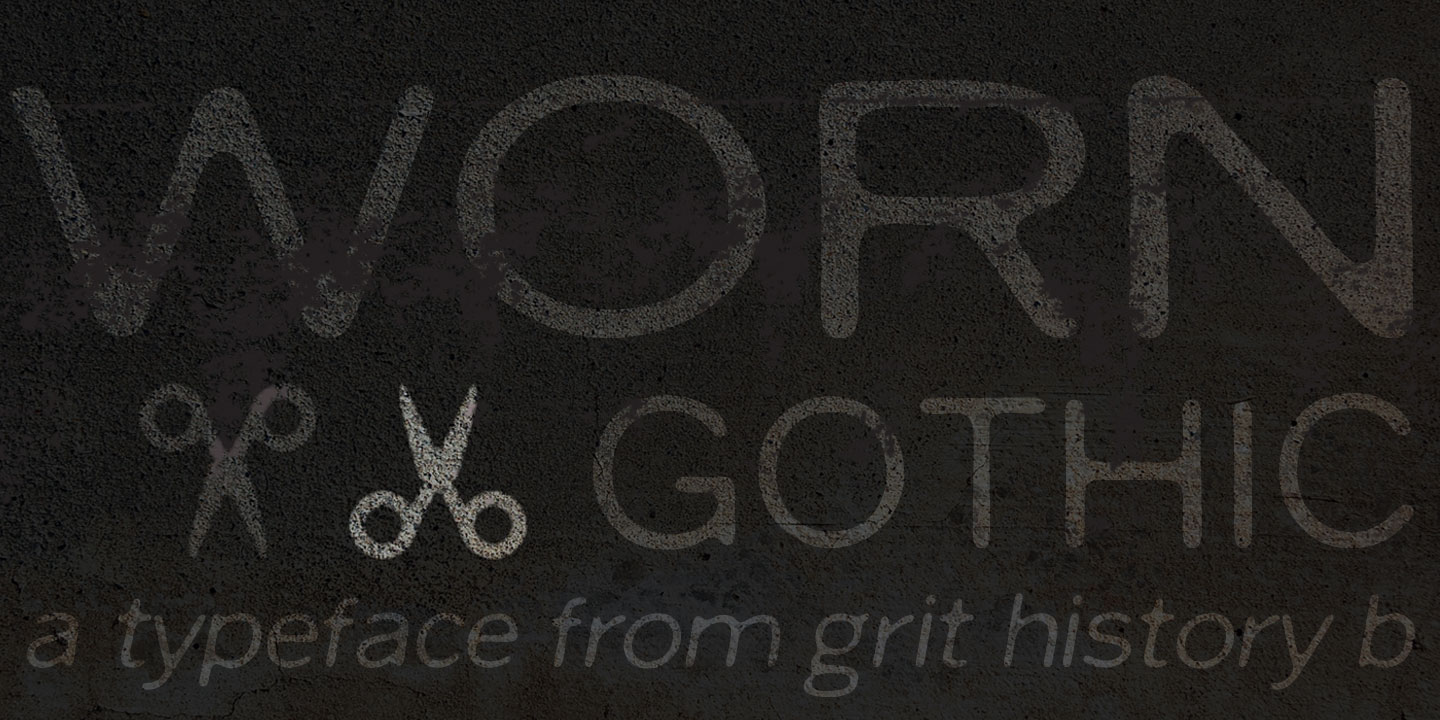
Worn Gothic Font is perfect for vintage horror movie posters, distressed clothing brand logos, weathered architectural signage, aged manuscript reproductions, grunge music album covers, antique shop branding, historical restoration projects, and atmospheric haunted attraction promotions. This haunting typeface excels in vintage applications, distressed design projects, and any creative work requiring weathered authenticity that captures the essence of gothic decay and timeworn character through atmospheric visual aging.
What makes Worn Gothic Font exciting is its remarkable ability to embody the haunting beauty of time-weathered gothic architecture through authentically distressed letterforms that carry the weight of centuries and the mystery of forgotten ages. The font features dramatically aged characters with gothic decay and weathered proportions that evoke feelings of historical depth and atmospheric mystery, making it ideal for brands seeking to establish connections with vintage enthusiasts and communicate through authentically aged visual language. Its weathered presence ensures immediate recognition of gothic authenticity and timeworn sophistication.
Worn Gothic Font family includes multiple weights and styles: Regular, Bold, Light, Medium, Italic variations, and distressed alternates with weathered embellishments and gothic decorative elements. Each family member maintains the distinctive aged character while offering comprehensive design options for vintage campaigns, from atmospherically weathered text to commanding gothic headlines that establish historical authority and vintage credibility through authentically distressed typography.
Whether you're designing vintage brand identities or creating atmospheric gothic campaigns, Worn Gothic Font Free Download provides the perfect typography solution for weathered branding needs. This font transforms ordinary text into haunting historical statements that communicate gothic authenticity and timeworn elegance. Vintage clothing brands and atmospheric entertainment companies choose this typeface for its ability to convey weathered sophistication through authentically aged letterforms that decay through designs with gothic grace and celebrate the haunting beauty of time-weathered character.